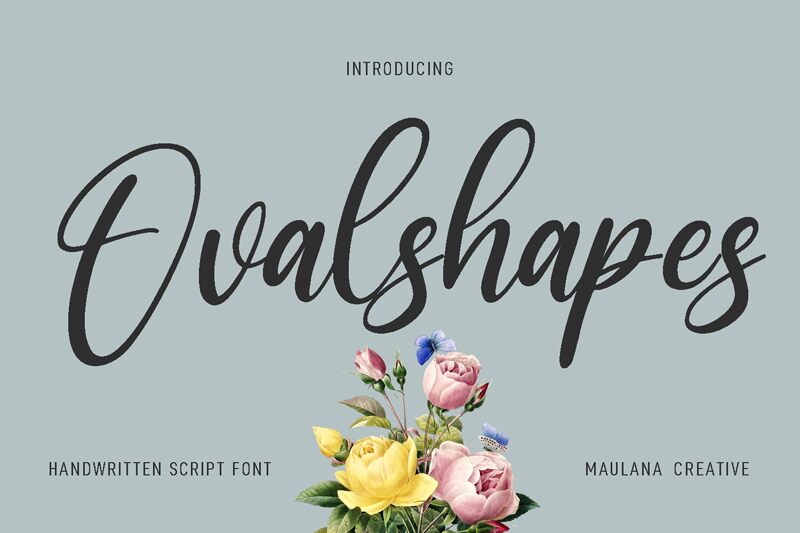
Ovalshapes Free Regular
Ovalshapes, designed by Maulana Creative, is a captivating calligraphy font that exudes elegance and sophistication. Its semi-light weight adds a delicate touch to any design project, making it perfect for wedding invitations, luxury brands, and fine art prints. With its graceful curves and flowing lines, Ovalshapes effortlessly adds a touch of beauty to logos, packaging designs, and editorial layouts. This versatile font typeface lends itself to both digital and print mediums, ensuring your projects stand out with its unique charm. Elevate your designs with the mesmerizing allure of Ovalshapes.